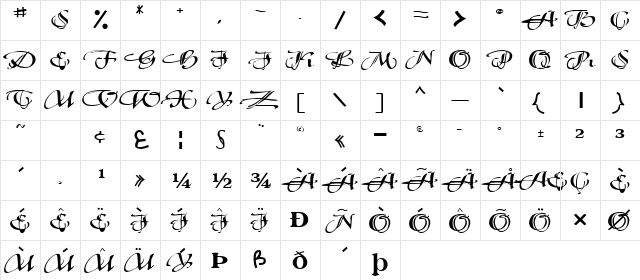
Fresh Regular
Design Context for Fresh Typeface
Fresh is a composed and adaptable typeface that performs quietly and consistently across a wide range of design contexts.